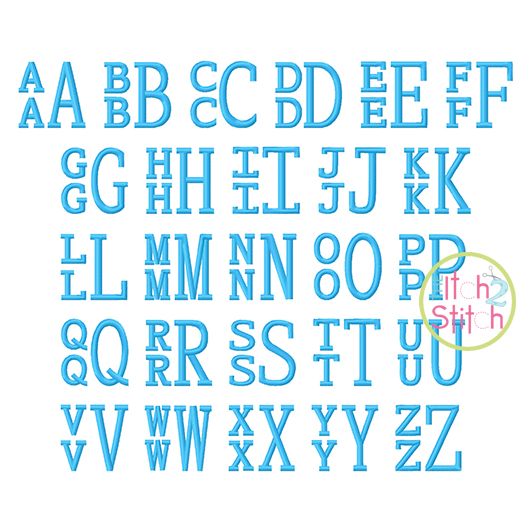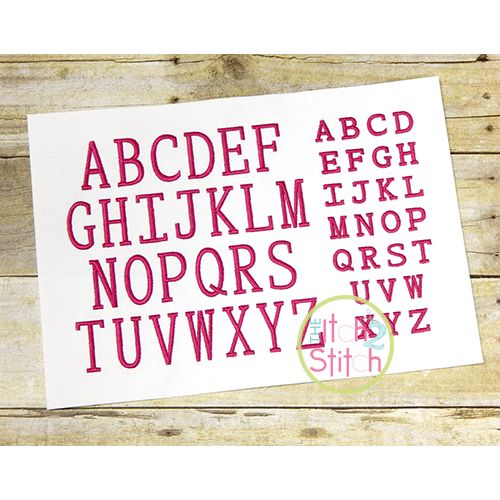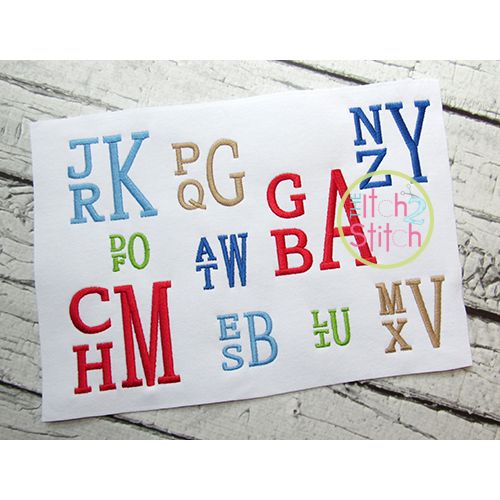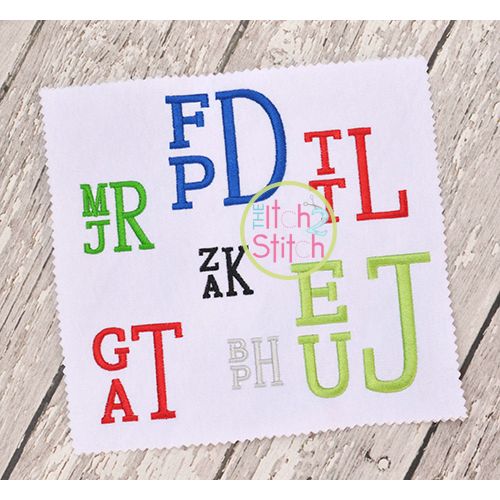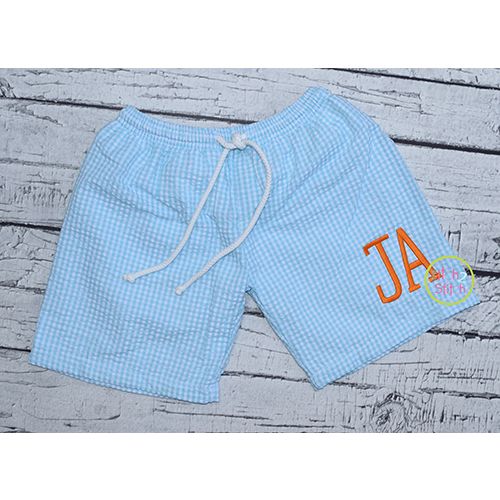
Stacked Serif Satin Stitch Monogram Embroidery Font
You will receive all Aa-Zz letters (52 files) in five sizes (1", 1.5", 2", 2.5" and 3"). For each size of the monogram there are two styles of letter. Use two "lowercase" letters stacked on the left and a "capital" letter on the right from the same size folder to create the square shaped monogram.